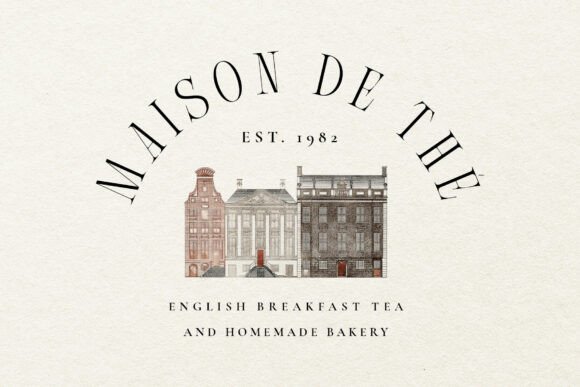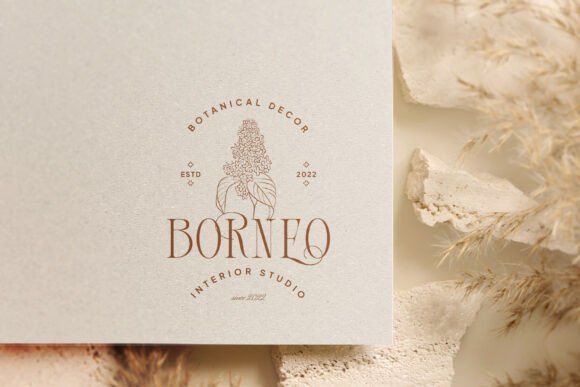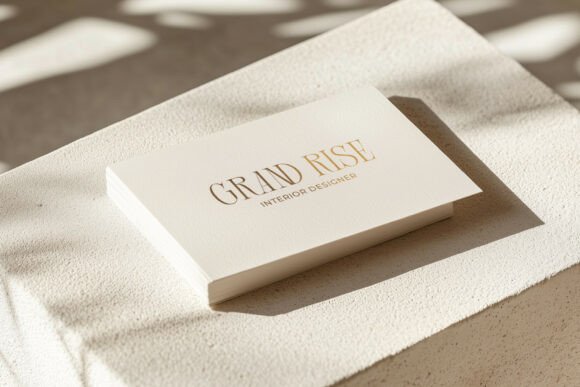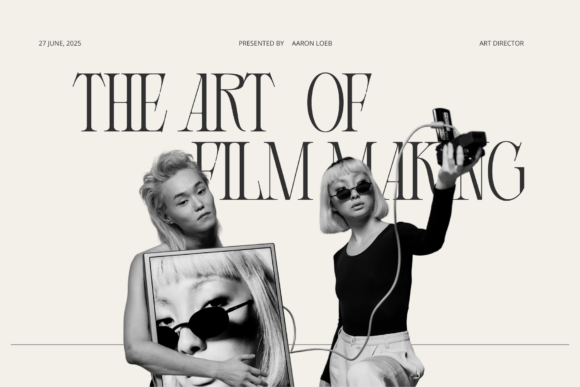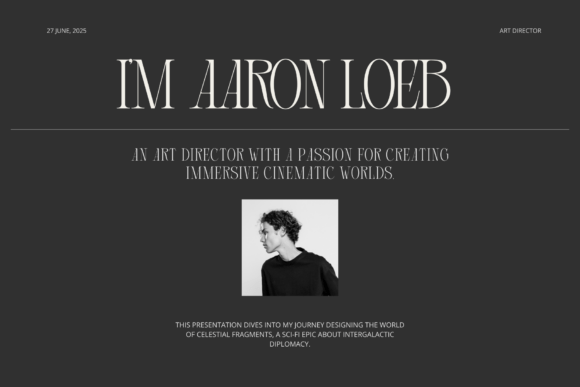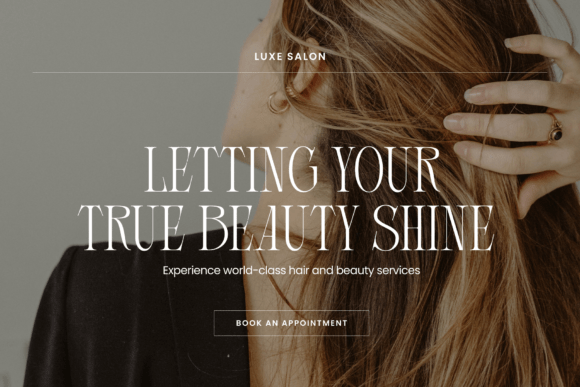
Introduction to Courage Apprentice Font
Sophistication meets modernity in the Courage Apprentice font.
This high-contrast serif typeface is the definition of โquiet luxury โ With its razor-thin hairlines and bold vertical strokes, the Courage Apprentice typeface exudes an air of authority and grace.
Key Features of Courage Apprentice Font